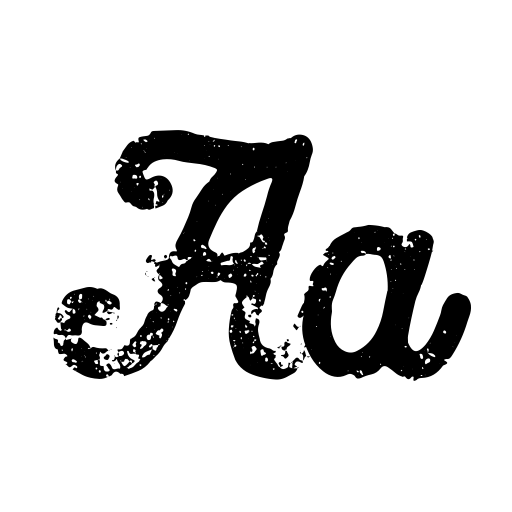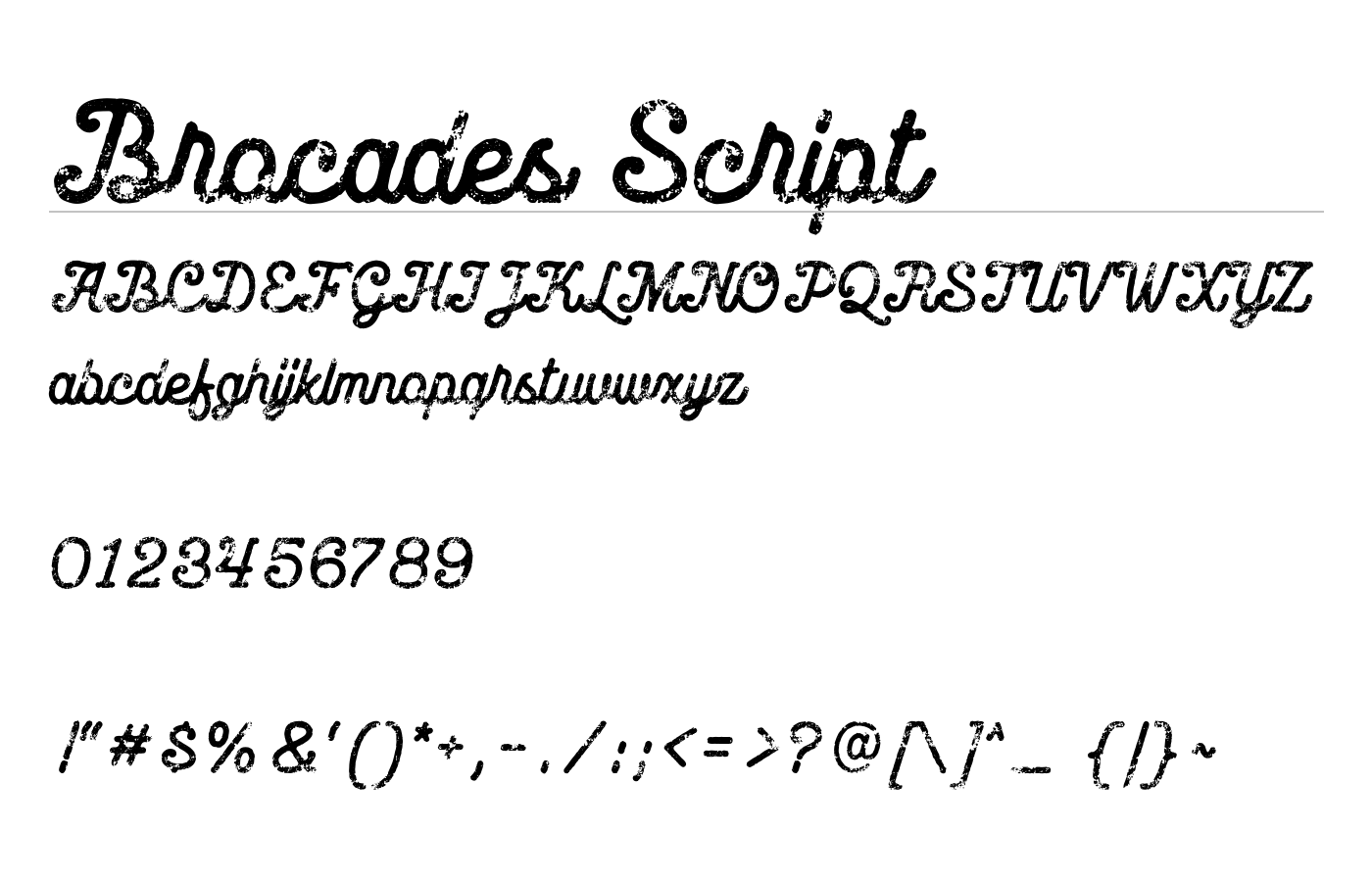
Brocades Script is a vintage-inspired script font with a worn, textured appearance that adds a handcrafted, nostalgic feel. Its elegant, flowing letterforms with moderate contrast and rounded strokes lend a warm, inviting charm, making it ideal for retro designs, packaging, or branding that seeks a nostalgic and artistic touch. This font works beautifully in headlines, logos, and creative projects where personality and a handcrafted vibe are desired.
Brocades Script Font
About Brocades Script Font
| Font family | Brocades Script Font |
| Designer | Edi Gunawan |